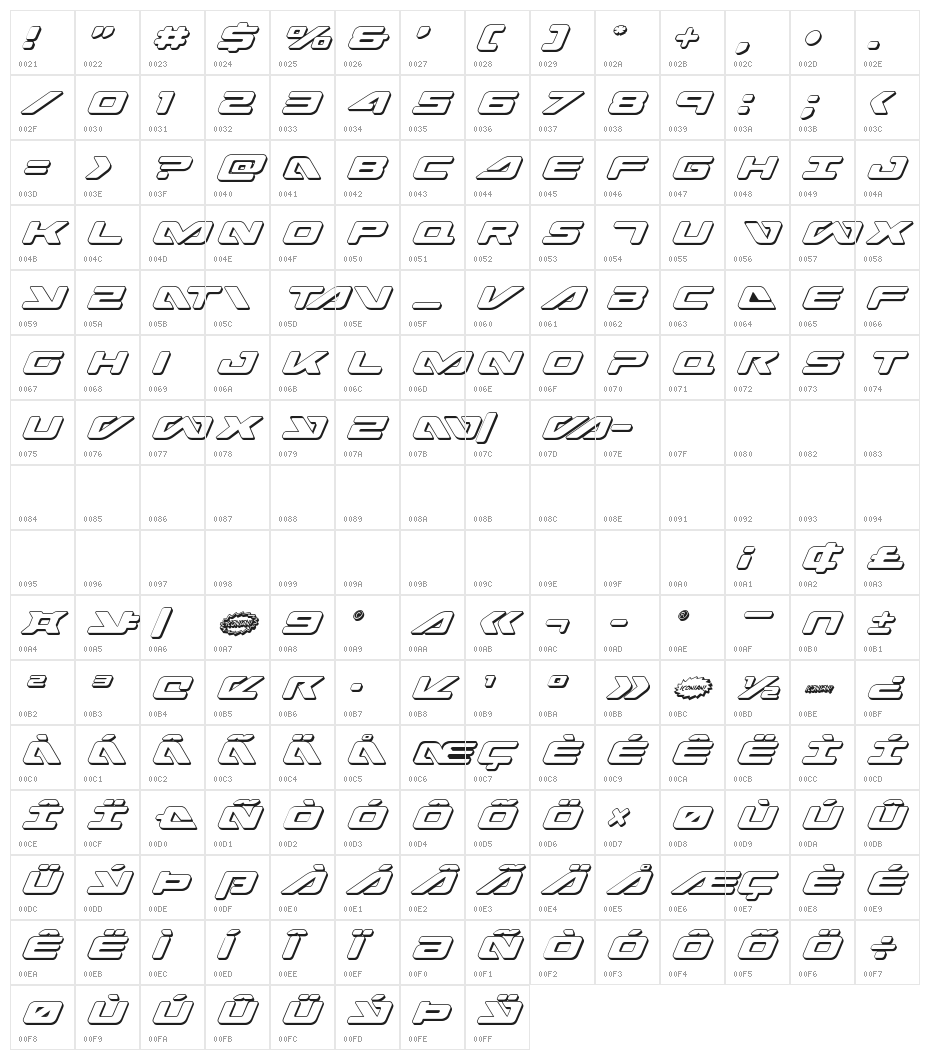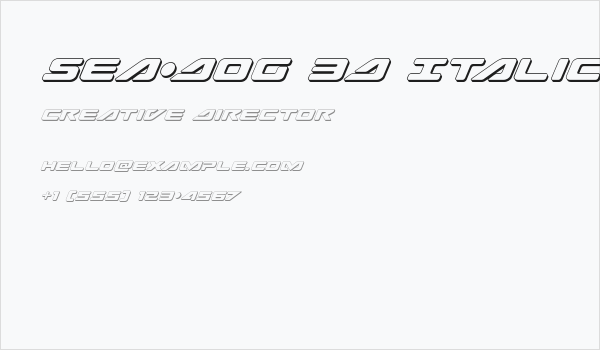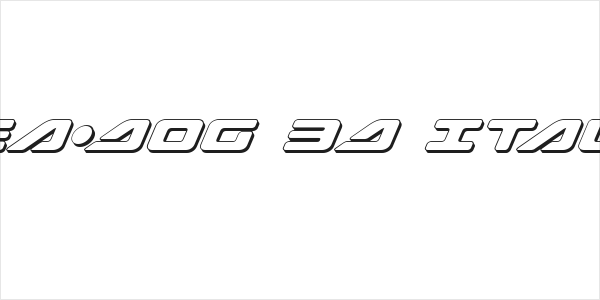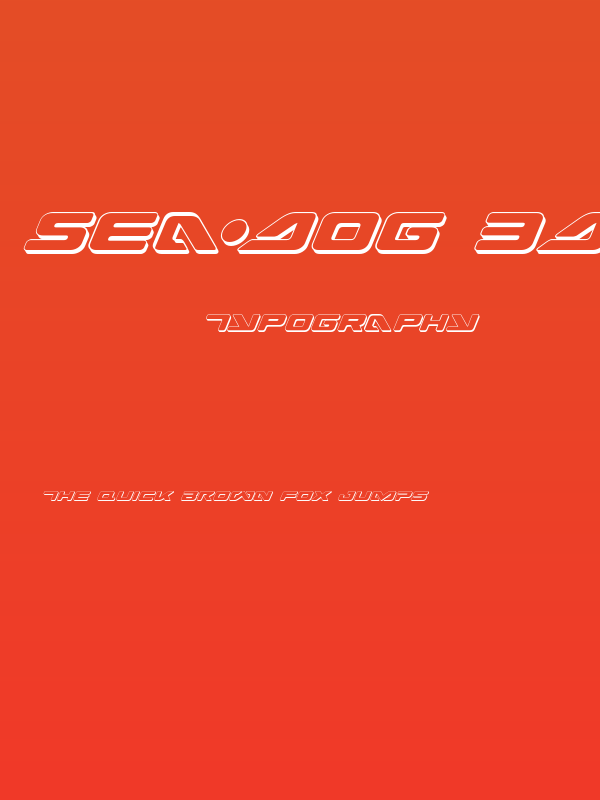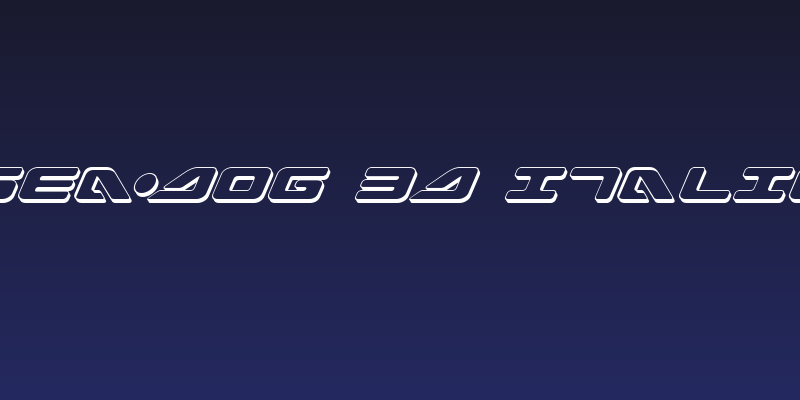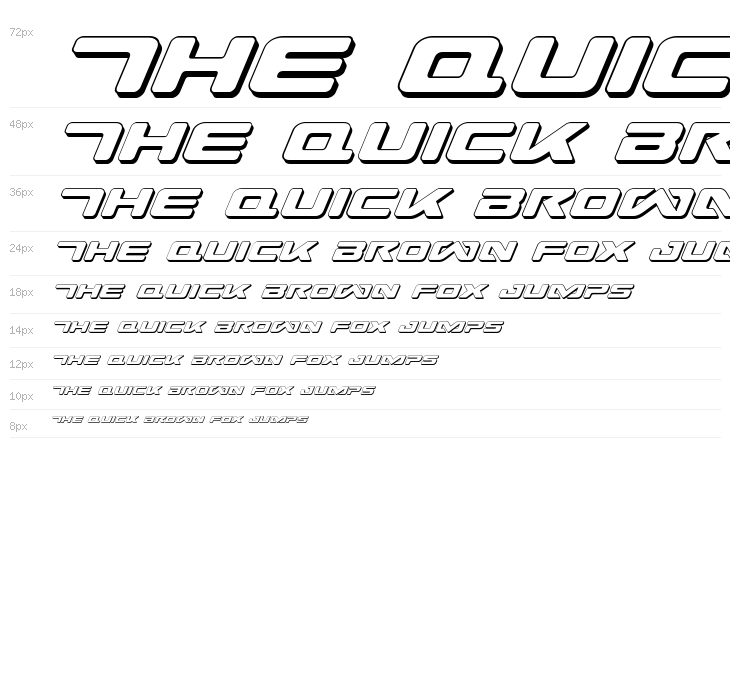
Sea-Dog 3D Italic Font
Sea-Dog 3D Italic Description
This font features a bold, three-dimensional appearance with an italic slant, giving it a dynamic and futuristic feel. The characters are outlined, creating a hollow effect that enhances the 3D illusion. The angular and geometric shapes of the letters contribute to a modern and tech-inspired aesthetic. The uppercase and lowercase letters maintain a consistent style, with sharp edges and a uniform stroke width. The numbers and special characters follow the same design principles, ensuring a cohesive look across all glyphs. This font is ideal for projects that require a bold and eye-catching display, such as posters, logos, and digital interfaces.
| Proposed Projects | Ideal for tech-themed posters, logos, digital interfaces, and futuristic branding. |